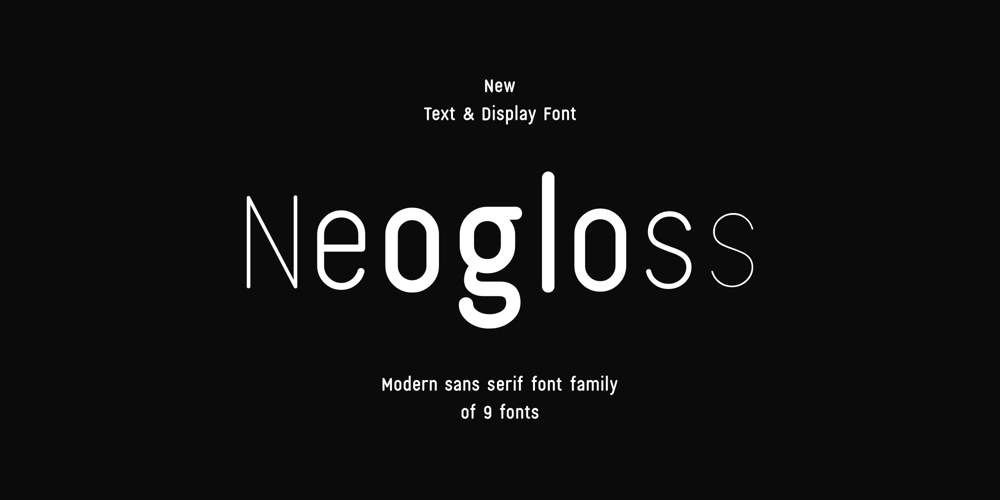
Neogloss Font Family was designed by Sadat Fauzi, Intuisi Creative and published by Fauzistudio. Neogloss contains 9 styles and family package options. Neogloss is a rounded sans serif with lots of personality. A great choice for friendly web designs, kids products, and natural beauty brands, Neogloss provides a good organic feel to any project.Hope you enjoy.Intuisi Creative